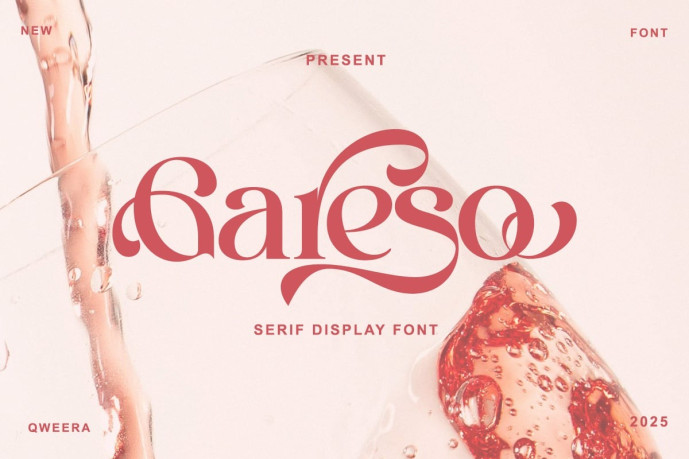
Gareso Font
Designer: IdhhamCholid
Gareso Font is a modern serif display typeface designed with flowing curves and elegant proportions. Its expressive character gives it a look that is both bold and refined, making it ideal for eye-catching branding and editorial projects.
Ideal for designers looking for a serif font full of personality, Gareso combines modern elegance with an artistic touch.